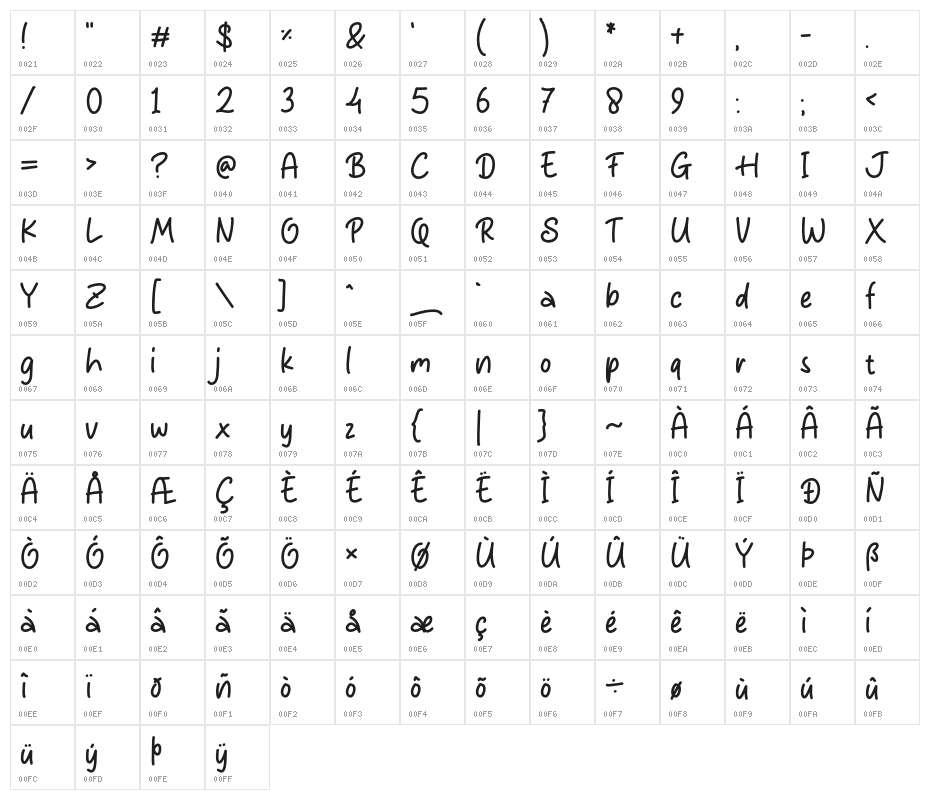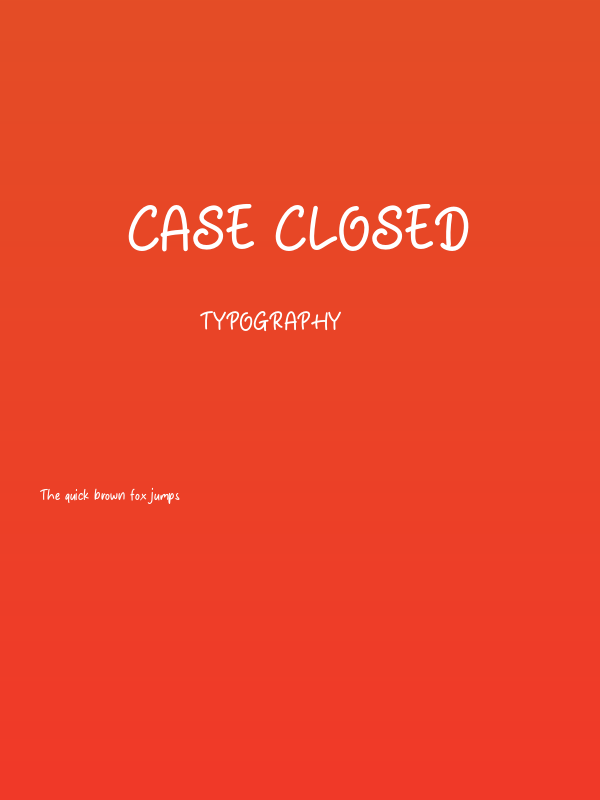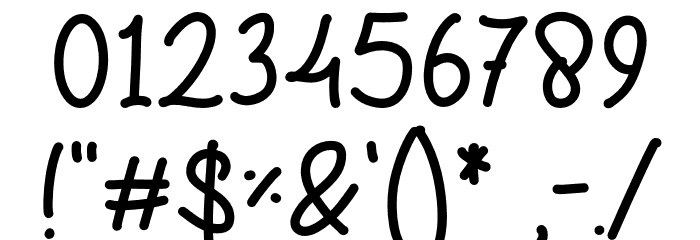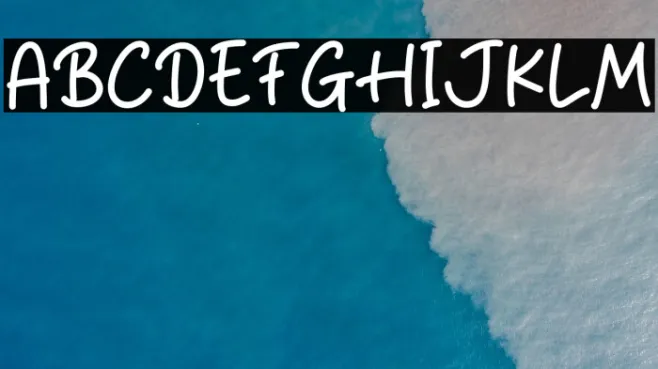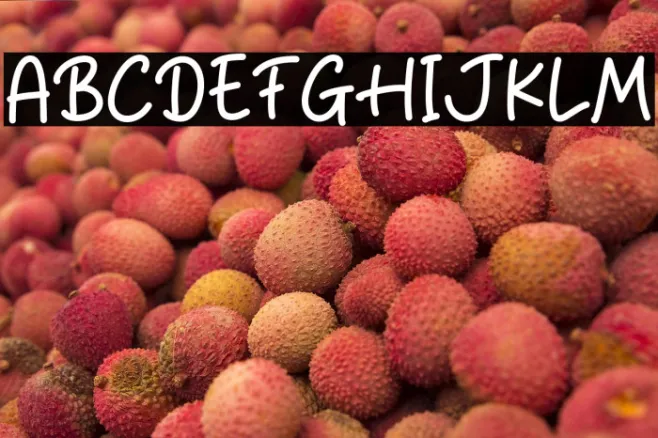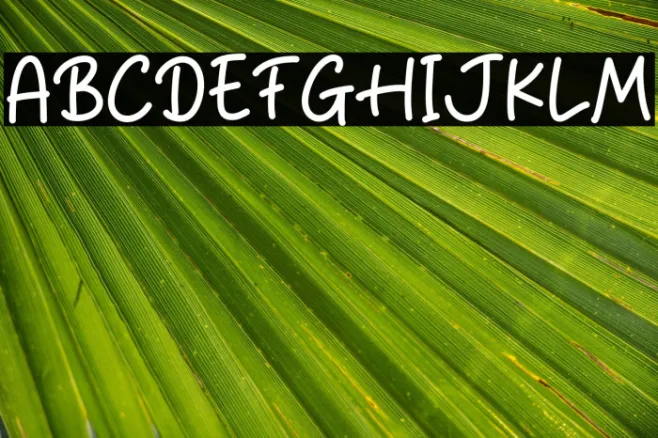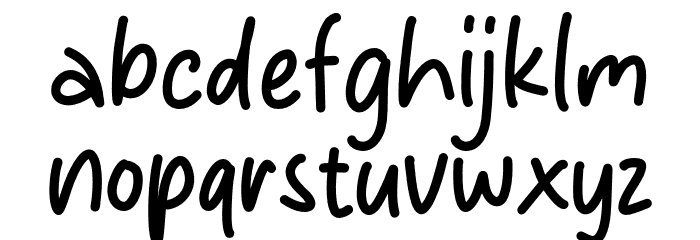
Case Closed Font
This font features a playful and casual handwritten style, characterized by smooth, rounded strokes and a slightly irregular baseline that adds to its informal charm. The letters are well-spaced, providing a clear and legible appearance. The uppercase and lowercase letters maintain a consistent style, with the lowercase letters exhibiting a slight slant that enhances the handwritten feel. Numbers and special characters are designed to match the overall aesthetic, ensuring a cohesive look across all text elements.
| Overall Style | Casual |
| Use Case | Logos, Headlines, Informal Text |
| Proposed Projects | Ideal for greeting cards, children's books, casual branding, and social media graphics. |